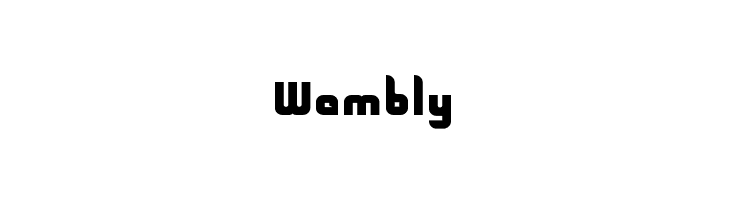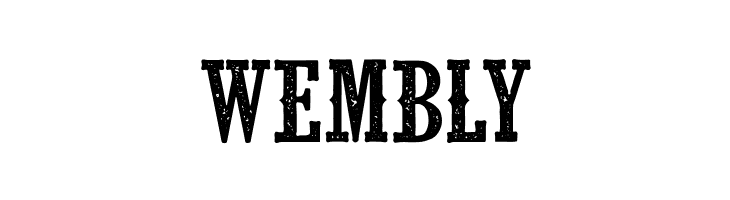
CF Klondike PERSONAL Regular Font
CloutierFontes - Steve Cloutier - www.cloutierfontes.ca/
A bold, distressed serif font with a vintage, rugged style.
Klondike-Seven Font
A bold, geometric font with rounded edges and a playful touch.